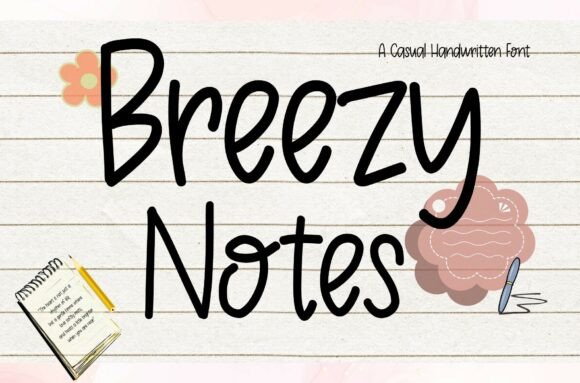
Breezy Notes Font: The Perfect Handwritten Font for Your Creative Projects
Are you looking for a font that can add a personal touch to your designs? Look no further than Breezy Notes Font. This natural handwritten font is perfect for a wide range of creative projects, from logos and branding to wedding invitations, business cards, and more. In this article, we’ll explore the features and benefits of Breezy Notes Font and show you how it can bring your designs to life.
What is Breezy Notes Font?
Breezy Notes Font is a beautiful, natural handwritten font that is designed to give your designs a personal and unique touch. With its flowing lines and elegant curves, this font is perfect for creating a wide range of creative projects, from formal invitations to casual social media posts.
Features of Breezy Notes Font
Breezy Notes Font has a number of features that make it an ideal choice for your creative projects. Some of its key features include:
- Natural Handwritten Style: Breezy Notes Font has a natural, handwritten style that gives your designs a personal and unique touch.
- Perfect for Logos and Branding: With its elegant curves and flowing lines, Breezy Notes Font is perfect for creating logos and branding materials that stand out.
- Versatile: Breezy Notes Font is versatile and can be used for a wide range of creative projects, from wedding invitations to business cards, greeting cards, posters, magazines, social media, planner prints, and websites.
- Especially Useful for Halloween Designs: Breezy Notes Font is especially useful for Halloween designs, t-shirts, mugs, posters, and more.
Benefits of Using Breezy Notes Font
There are many benefits to using Breezy Notes Font in your creative projects. Some of the key benefits include:
- Unique and Personal Touch: Breezy Notes Font gives your designs a unique and personal touch that sets them apart from others.
- Elegant and Sophisticated: With its elegant curves and flowing lines, Breezy Notes Font adds an air of sophistication to your designs.
- Easy to Read: Breezy Notes Font is easy to read, making it perfect for body text and other applications where readability is important.
- Highly Versatile: Breezy Notes Font is highly versatile and can be used for a wide range of creative projects.
- Logos and Branding: Use Breezy Notes Font to create unique and memorable logos and branding materials.
- Wedding Invitations: Add a personal touch to your wedding invitations with Breezy Notes Font.
- Business Cards: Use Breezy Notes Font to create professional and elegant business cards.
- Greeting Cards: Add a personal touch to your greeting cards with Breezy Notes Font.
- Posters and Magazines: Use Breezy Notes Font to create eye-catching posters and magazines.
- Social Media: Use Breezy Notes Font to add a personal touch to your social media posts.
- Planner Prints: Use Breezy Notes Font to create beautiful and functional planner prints.
- Websites: Use Breezy Notes Font to add a personal touch to your website.
Tips for Getting the Most Out of Breezy Notes Font
Here are a few tips for getting the most out of Breezy Notes Font:
- Experiment with Different Sizes and Colors: Experiment with different sizes and colors to find the perfect look for your design.
- Combine with Other Fonts: Combine Breezy Notes Font with other fonts to create a unique and interesting look.
- Use for Body Text: Use Breezy Notes Font for body text to add a personal touch to your designs.
- Use for Headings: Use Breezy Notes Font for headings to add a touch of elegance and sophistication.
Breezy Notes Font is a beautiful and versatile handwritten font that is perfect for a wide range of creative projects. With its natural, elegant style and highly versatile design, Breezy Notes Font is sure to become a favorite in your design arsenal. Whether you’re creating logos and branding materials, wedding invitations, business cards, or social media posts, Breezy Notes Font is the perfect choice.